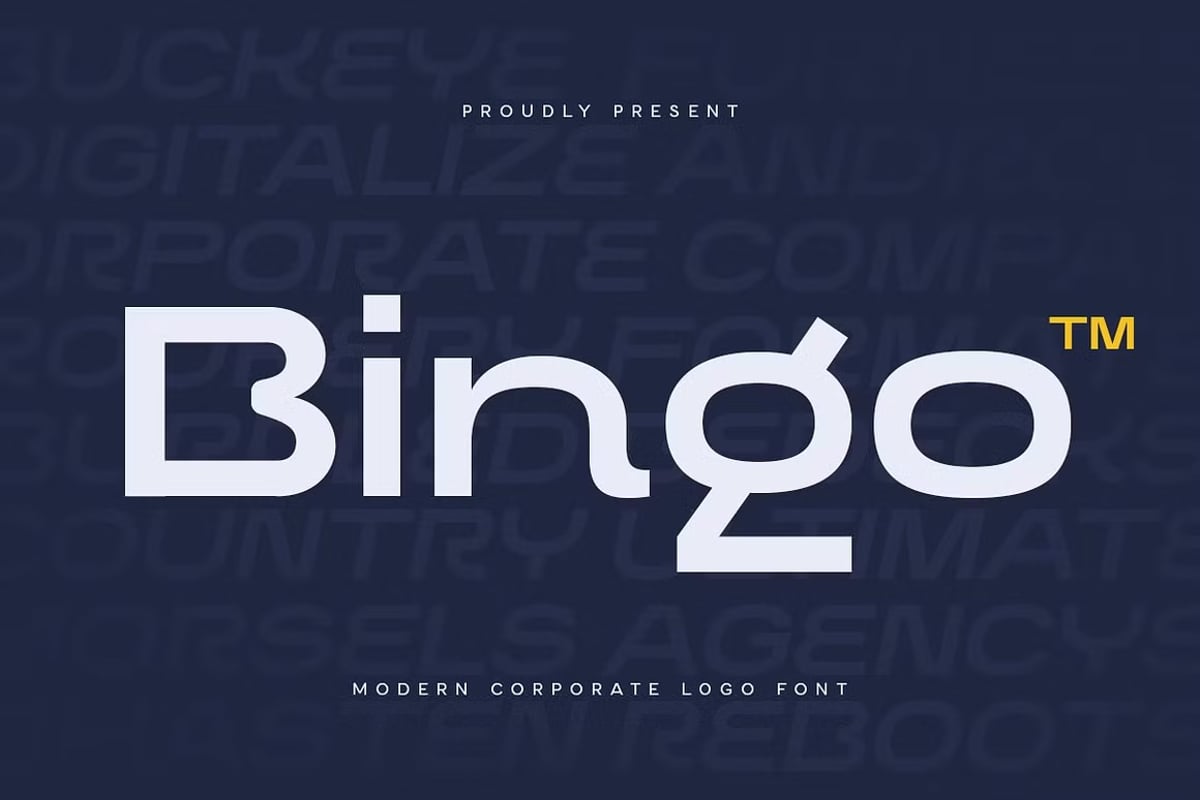
Bingo Logo Font
Create distinctive professional branding with this unique modern logo font featuring creative alternates. Bingo is a contemporary sans serif typeface crafted specifically for professional and modern branding projects that demand a unique aesthetic. The font's distinctive character variations and alternate options provide unlimited creative possibilities to elevate your brand's visual identity. This versatile logo font delivers the perfect solution for designers and brand owners seeking to achiev...